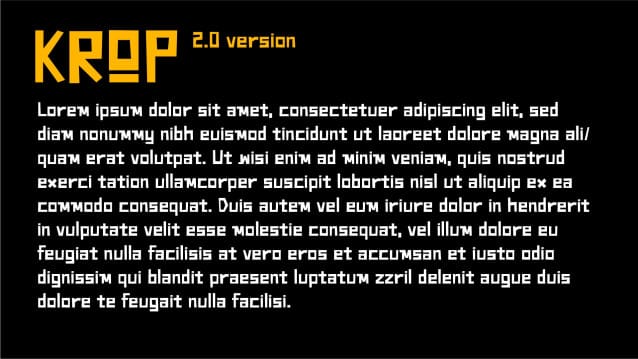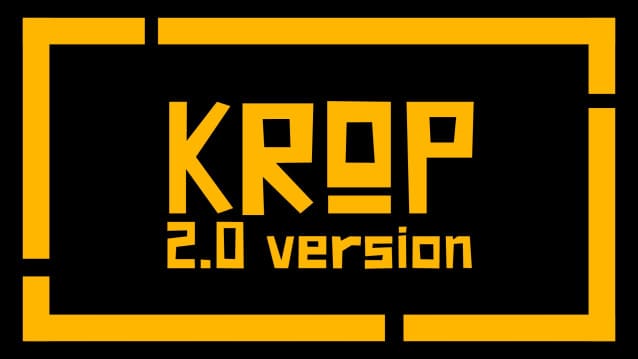
Krop 2 Font
Krop 2 Font is a fun and easy-to-use typeface. It’s the perfect choice for those who dare to be different and want to inject a dose of fun into your designs. Let your creativity run wild and make your message stand out with our fun typography – where letters become a source of endless amusement!